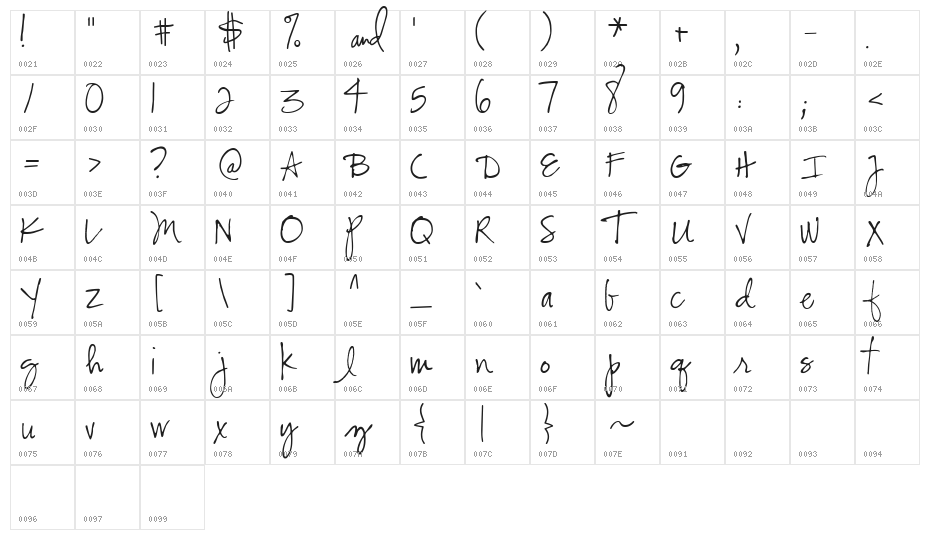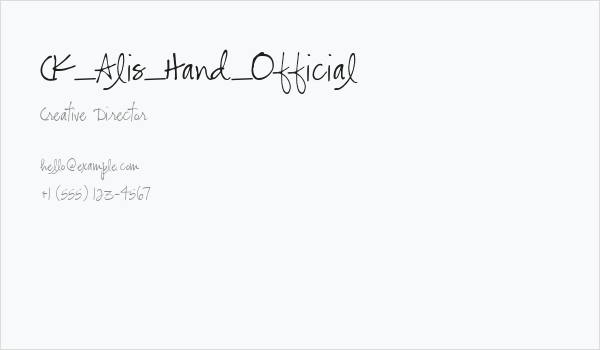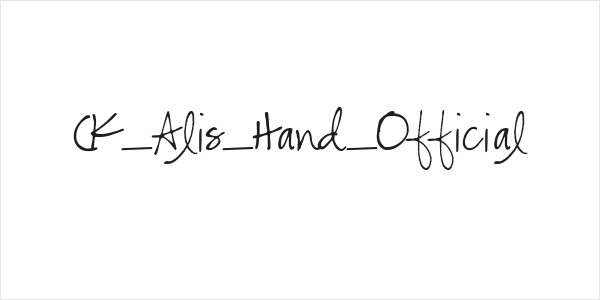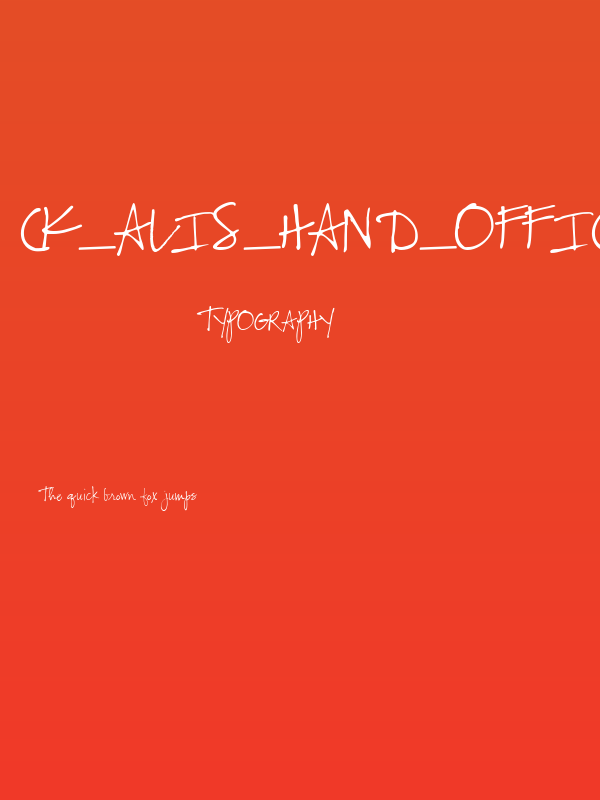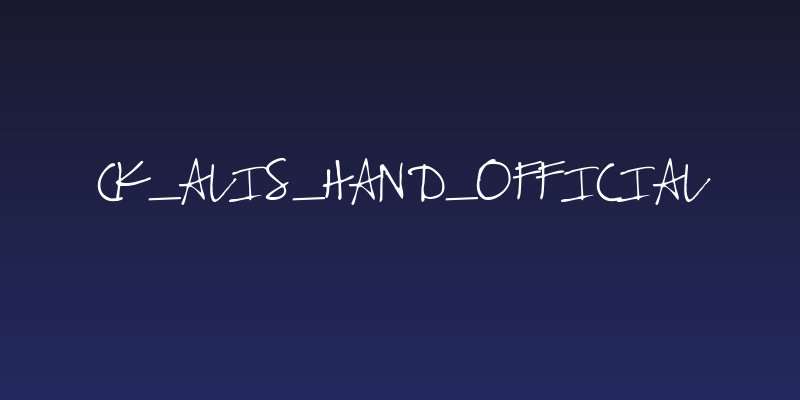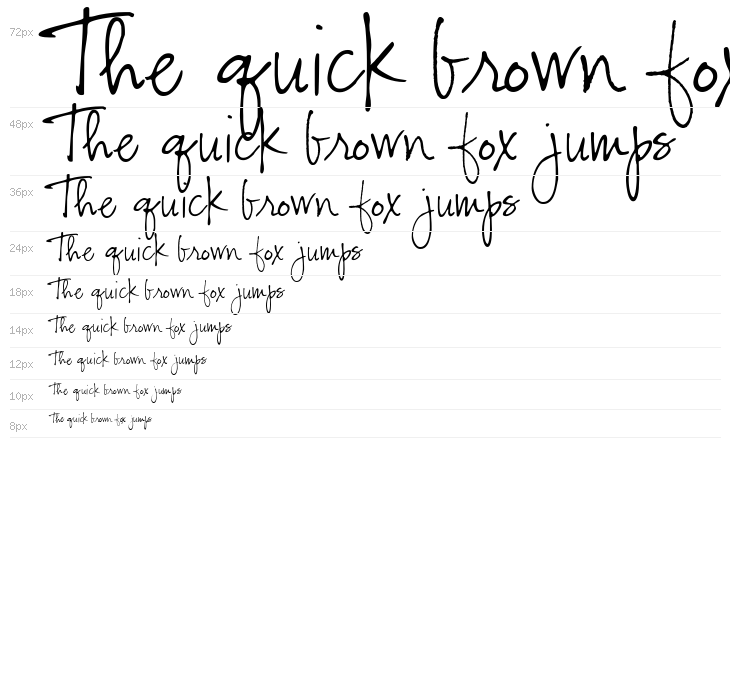
CK_Alis_Hand_Official Font
CK_Alis_Hand_Official Description
This font features a playful and casual handwritten style, characterized by its loose and flowing strokes. The letters are unevenly sized and spaced, giving it an informal and personal touch. The uppercase letters are tall and slightly narrow, while the lowercase letters maintain a consistent height with varying widths. The numbers and special characters follow the same whimsical style, adding to the font's overall charm. This font exudes a sense of spontaneity and creativity, making it ideal for projects that require a personal or artistic flair.
| Overall Style | Casual, Artistic |
| Use Case | Logos, Creative projects, Informal text |
| Proposed Projects | Ideal for greeting cards, personal notes, creative projects, and informal branding. |